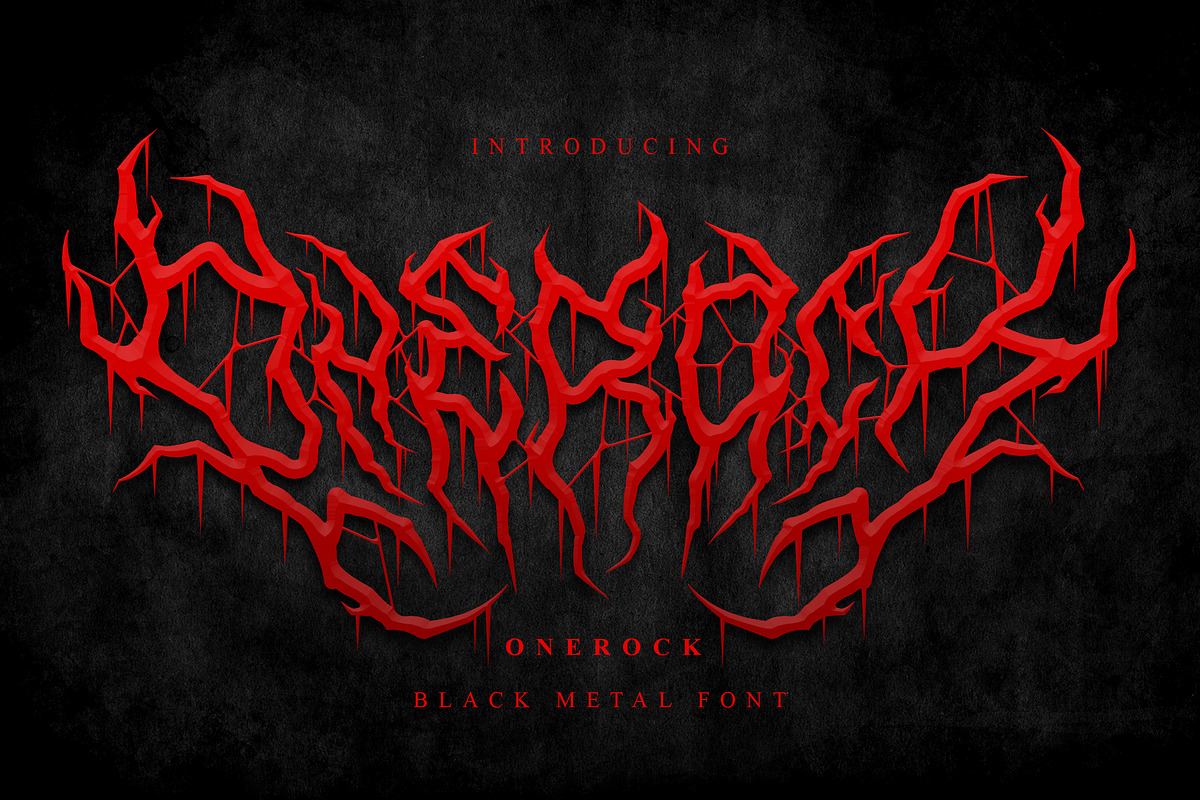
Onerock | Black Metal Font Vol.6 is perfect for black metal band logos, extreme music promotions, dark album artwork, underground concert graphics, metal festival branding, gothic horror designs, aggressive poster creation, brutal band merchandise, dark music publications, extreme metal labels, sinister event promotions, and powerful underground communications.
Onerock | Black Metal Font Vol.6 is exciting because it represents the latest evolution in extreme metal typography through its devastatingly brutal letterforms that capture the raw intensity, darkness, and uncompromising power of black metal's most authentic expressions. This formidable typeface features viciously sharp character constructions with menacing details that embody the genre's relentless aggression and underground authenticity. The font's brutal aesthetic speaks directly to audiences who live and breathe extreme metal culture, demanding nothing less than total sonic and visual devastation.
This devastating typography solution transforms ordinary communications into brutal metal experiences through its authentic black metal aesthetic and extreme design language. Onerock | Black Metal Font Vol.6 Free Download enables designers and metal brands to access premium extreme typography that instantly adds brutality, underground authenticity, and black metal intensity to any creative project. The font's carefully crafted aggressive elements ensure genuine metal character while maintaining readability and distinctive extreme presence.
Black metal bands, extreme music labels, and underground culture businesses trust Onerock | Black Metal Font Vol.6 for its ability to communicate raw power, authenticity, and metal brutality to audiences seeking genuine extreme music experiences and underground cultural expression. The typeface's devastating construction performs exceptionally well across various applications, from intimate band communications to large-scale metal festival promotions. Its extensive character support includes multilingual capabilities and metal-themed design elements that enhance authentic extreme brand presentations.
The creative inspiration behind Onerock | Black Metal Font Vol.6 draws from the darkest depths of black metal culture, extreme music aesthetics, and the uncompromising spirit that continues to define metal's most brutal and authentic expressions. This intensity-focused approach creates a font that feels genuinely extreme while maintaining contemporary relevance across different black metal contexts and underground brand expressions.